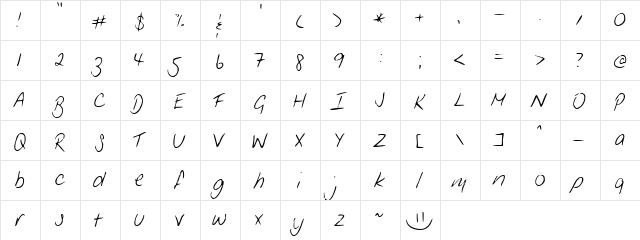
Jenny Handwriting
| Style | Handwriting |
| Foundry | Font Garden |
| Designer | Ellinor Rapp |
Design Context for Jenny Typeface
Jenny brings a calligraphic fluidity to the page — its connecting strokes and expressive curves give it an unmistakably human quality.